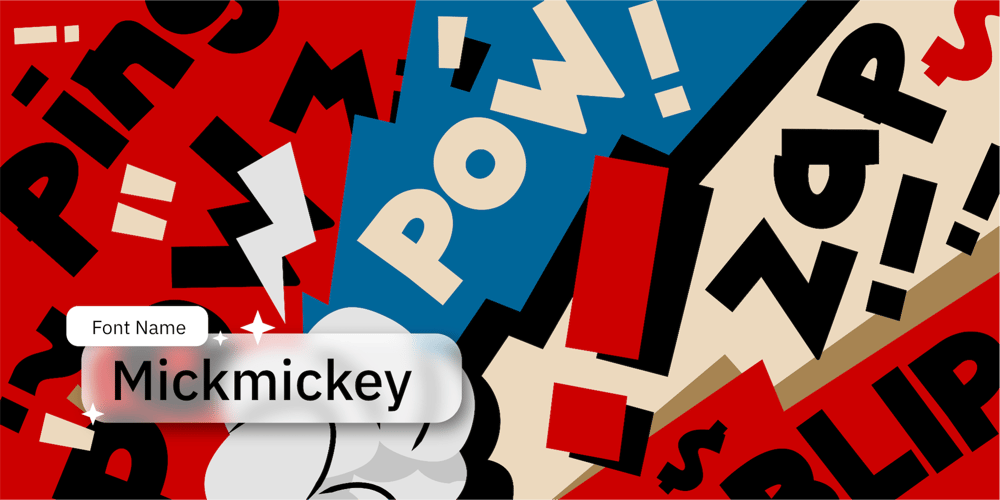
Mickmickey Font Family was designed by Wahyu Eka Prasetya, Afiat Sukmaraga and published by Hati. Mickmickey contains 1 styles and family package options. Mickmikey isn’t just a font, it’s a party on the page! Bursting with youthful energy and a playful spirit, its bold strokes and dynamic curves practically leap off the screen. This font is perfect for capturing the joy of being young and letting your wild side roar! This font will add a splash of personality to logos, posters, and any message that wants to shout “Hey, look at me!”